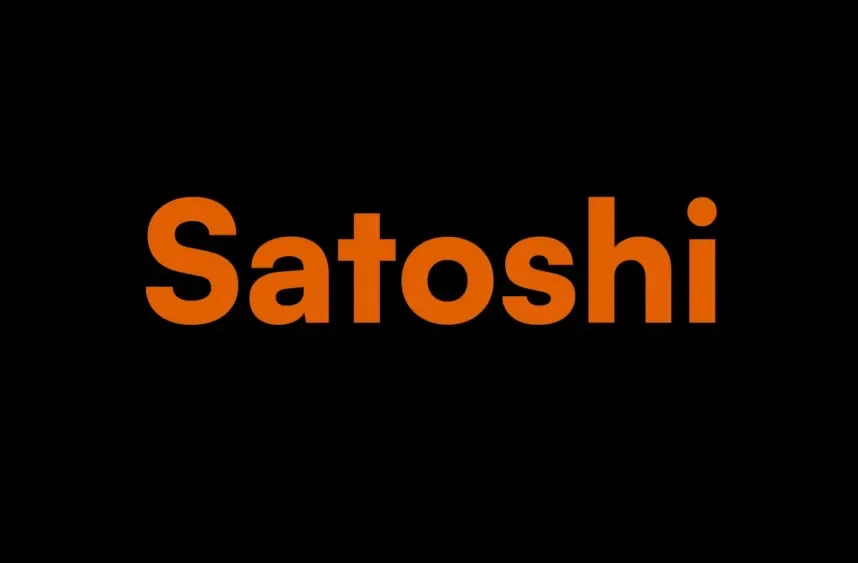
Satoshi is a clean, geometric sans-serif font made for modern interfaces. With its sharp lines, neutral tone, and subtle warmth, it’s the kind of typeface that quietly supports content without stealing the spotlight. Whether you’re building a website, a mobile app, or a product label, Satoshi blends in beautifully.
- Designer: Oliver Jeschke (and the team at Hanken Design Co.)
- Released: 2021
- Style: Neo-grotesque sans-serif
Satoshi was created as a high-quality, open-source alternative to premium fonts like Helvetica Neue or Circular. It’s built for flexibility and it shows.
- Comes in five weights from Light to Black
- Double-storied ‘a’ and ‘g’ (with single-storied alternates via OpenType)
- Includes 10+ ligatures, alternate ‘G’ and ‘t’, and tabular lining figures
- Bonus: directional arrows, shapes, emojis, and enclosed numerals
- Tall ascenders and proportional numerals for better readability
Satoshi is great for tech websites, portfolios, mobile apps, and minimalist brand identities. It pairs well with serif fonts like Lora or EB Garamond if you want a touch of contrast. For a super-clean combo, try using Satoshi Light with Satoshi Bold for headings and body text.